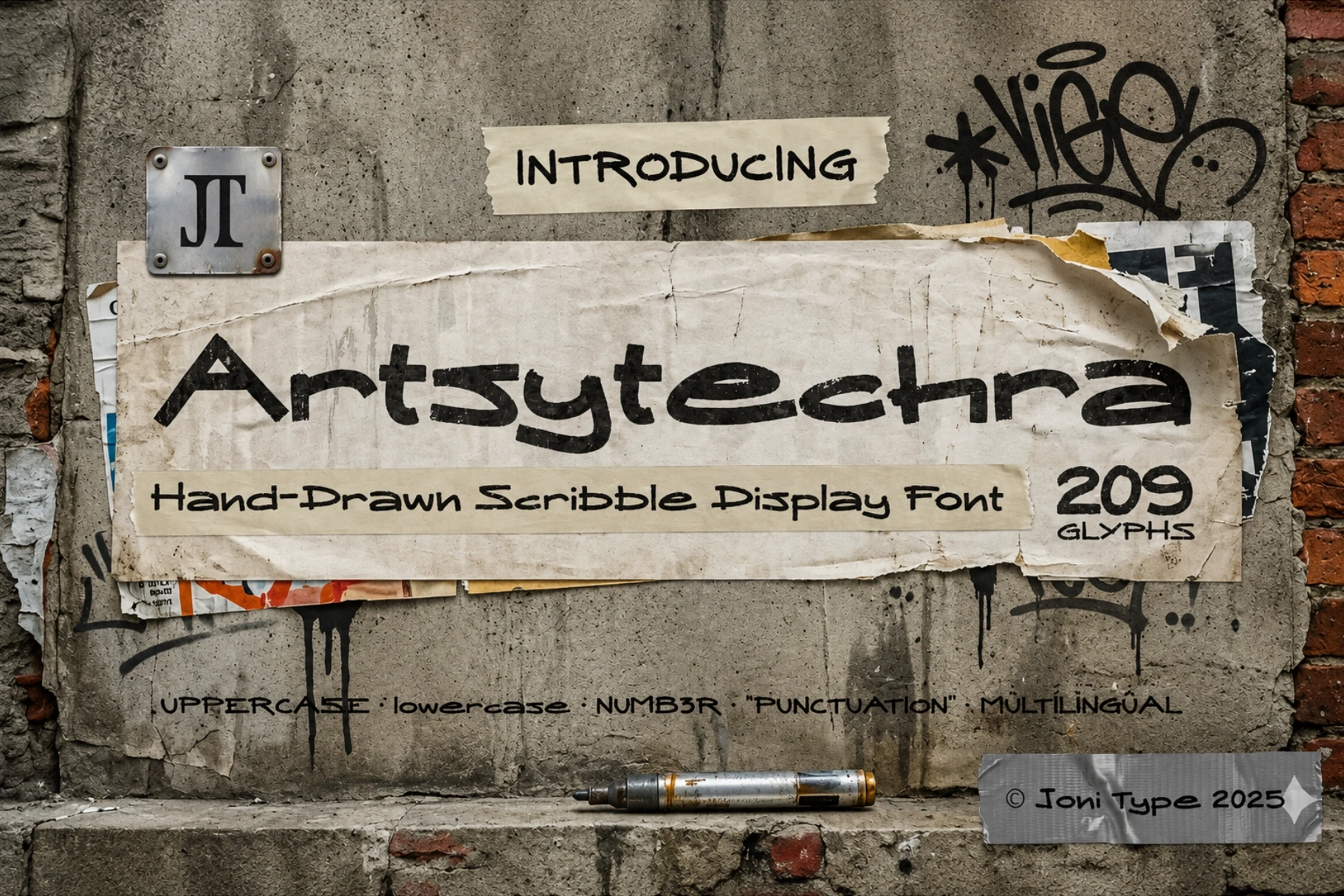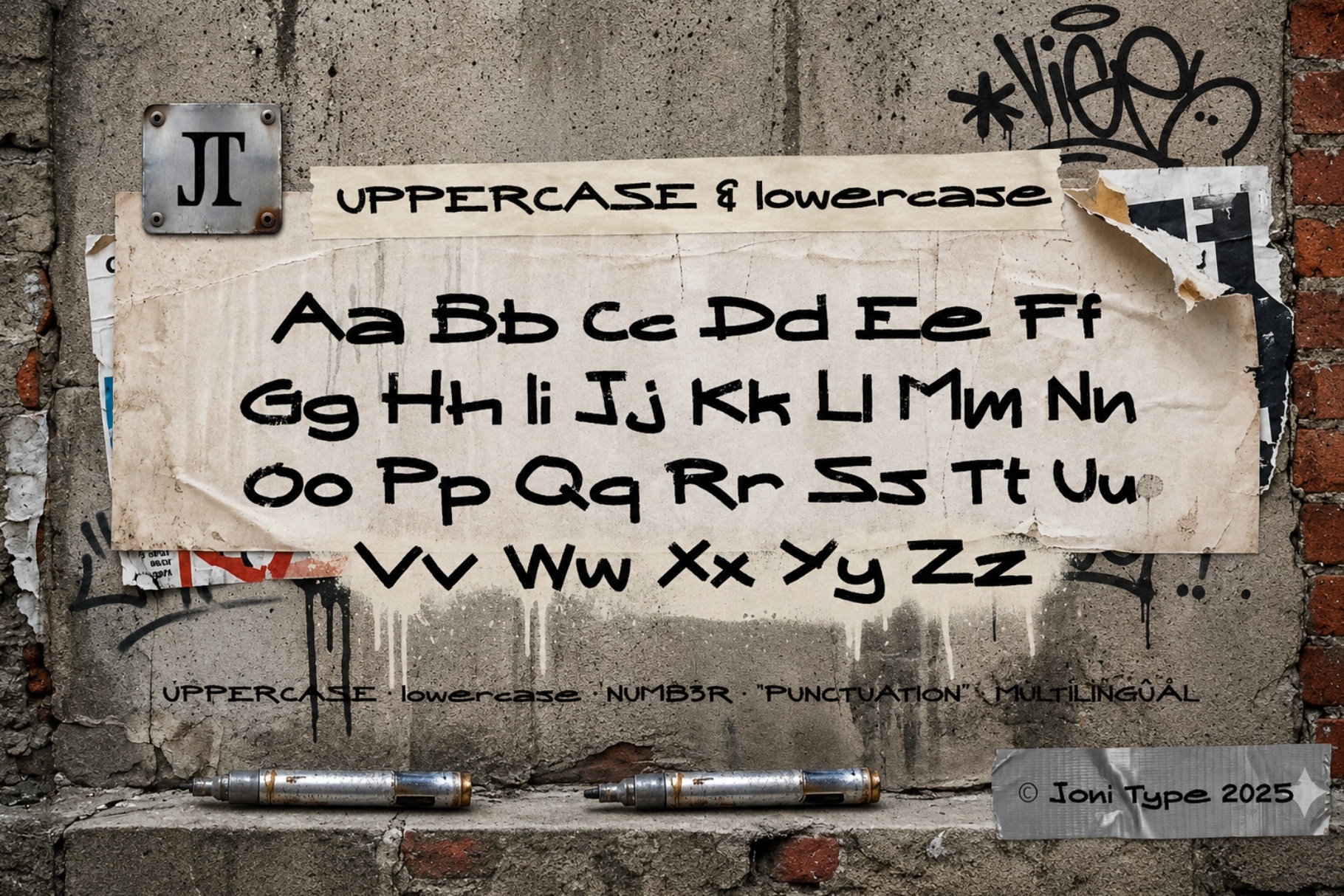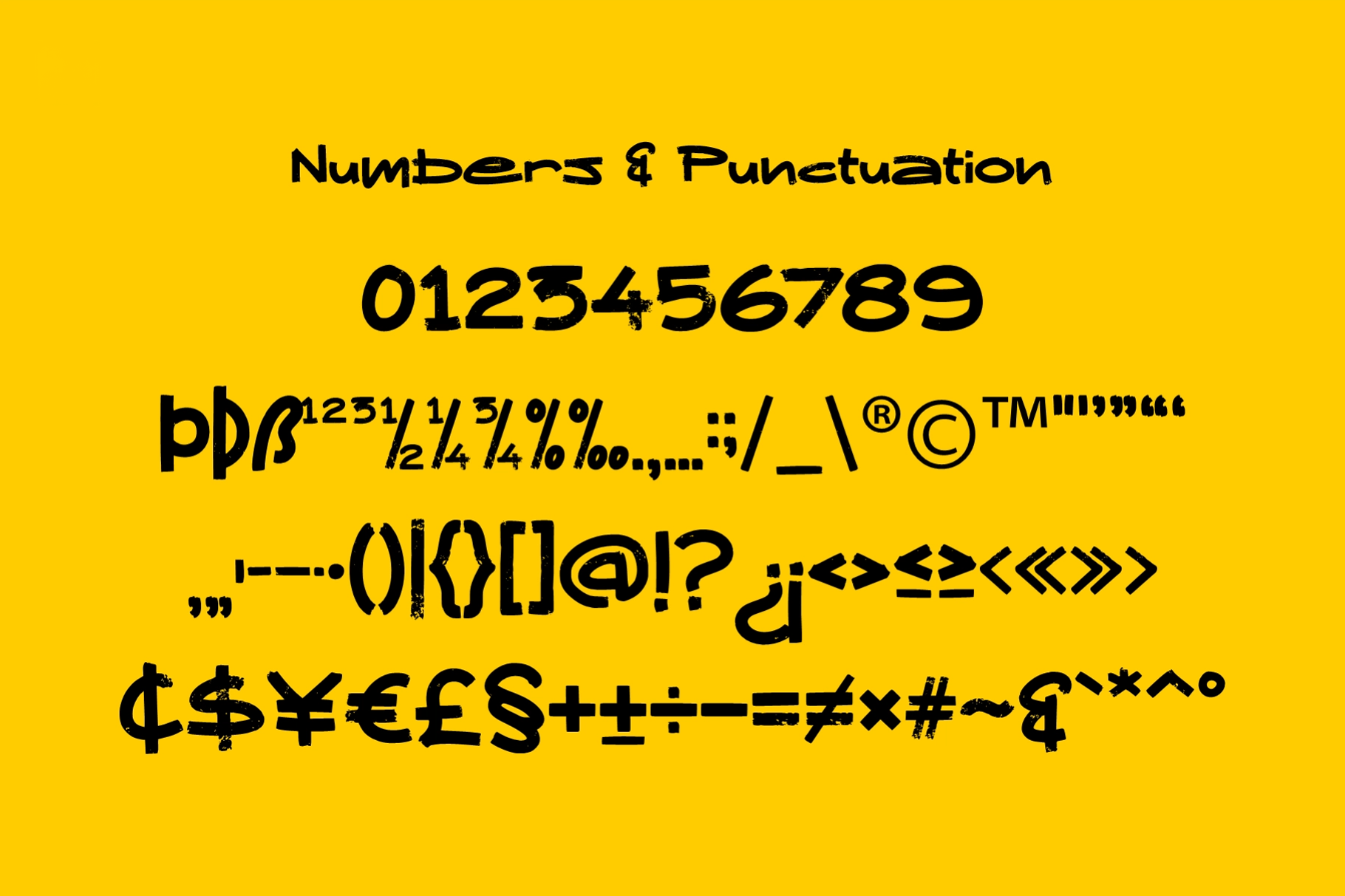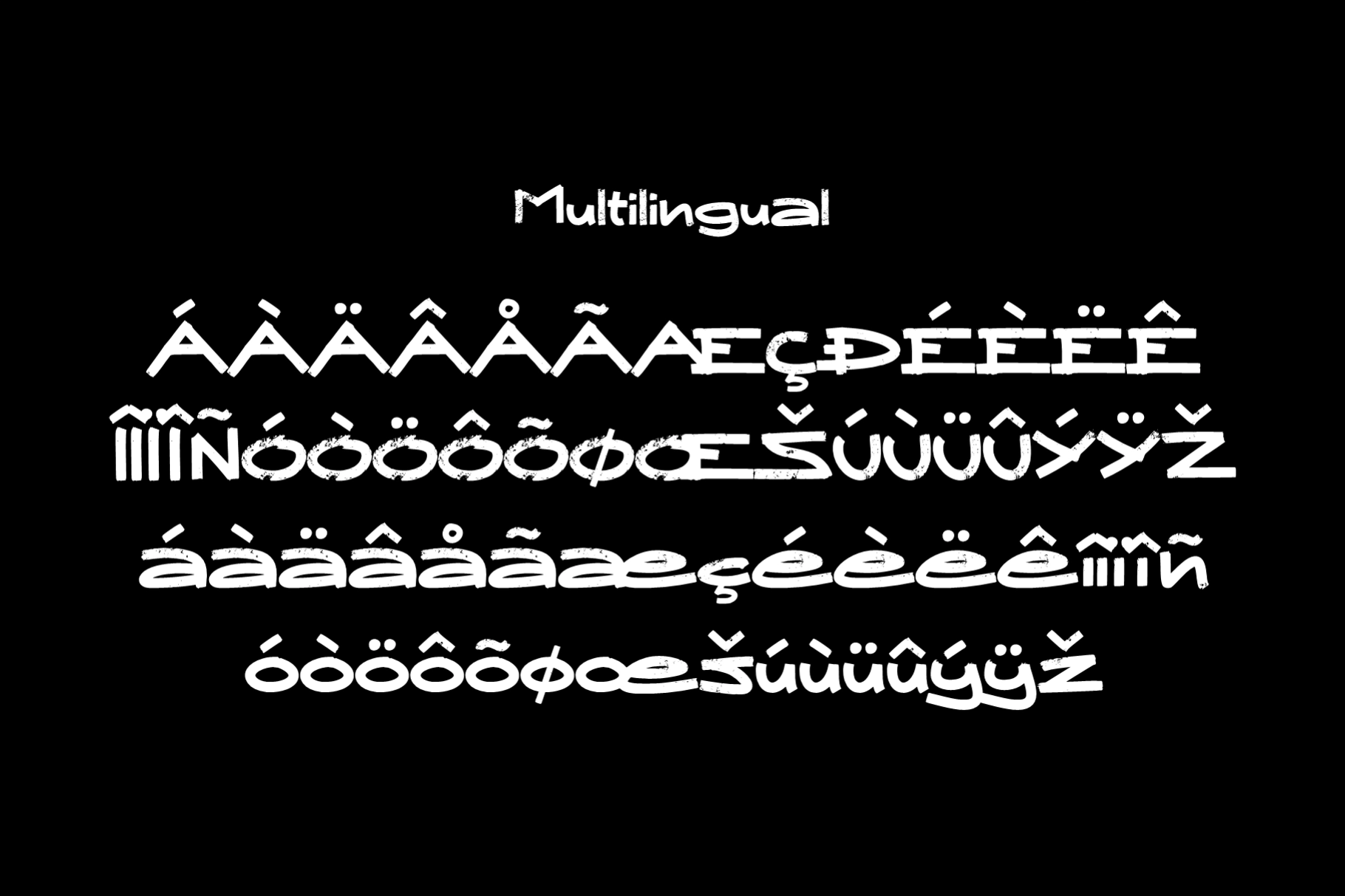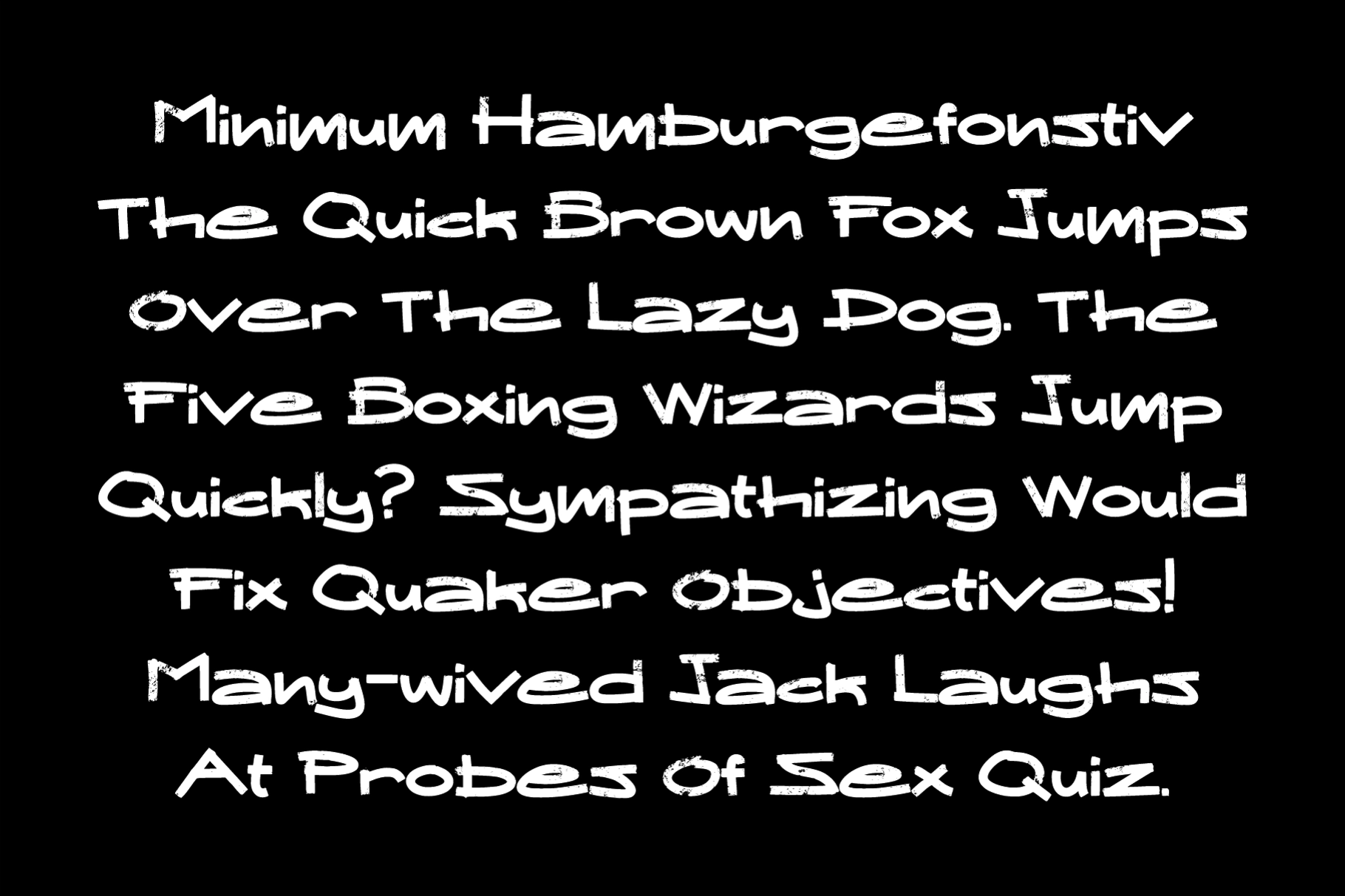
Artsytechra - Handdrawn Scribble Font
This handdrawn scribble font has rough marker strokes, uneven edges, and a scribbled street-art attitude. Its raw letterforms are loud, loose, and intentionally imperfect — the kind of type that looks like it was written on a wall five minutes before someone yelled, “security.”
Artsytechra is made for streetwear branding, album artwork, gig posters, zines, skate graphics, stickers, YouTube thumbnails, social media posts, event flyers, urban packaging, sports graphics, rebellious logo concepts, and grunge-themed campaigns. The wide glyph set, multilingual characters, numbers, and punctuation give it enough range for sharp headlines, punchy quotes, and chaotic layouts with actual structure underneath.